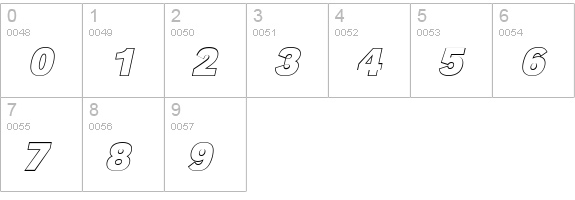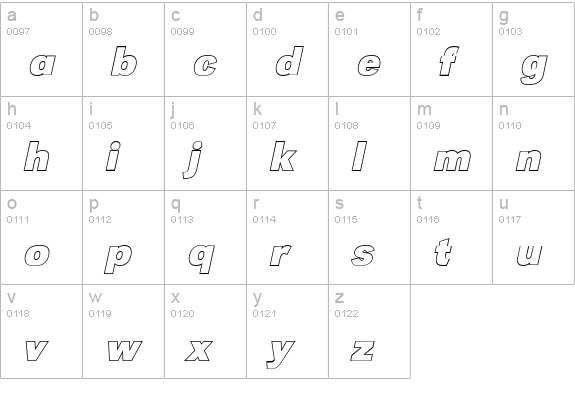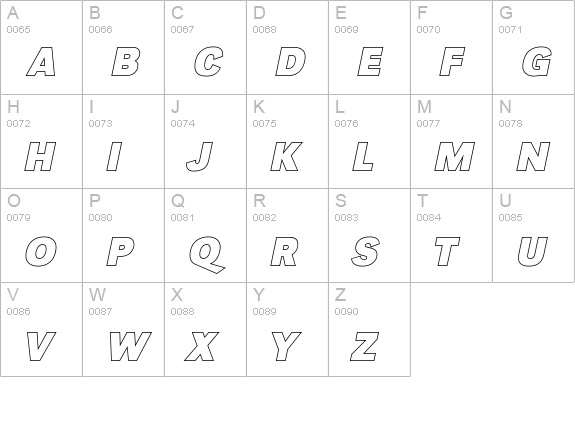
GroteskOu-BoldItalic is a bold and dynamic font that exudes a sense of strength and modernity. Its slanted italic style adds a touch of sophistication and elegance to any design project. This font is perfect for creating eye-catching headlines, branding materials, and bold statements. With its clean lines and distinct character shapes, GroteskOu-BoldItalic demands attention and makes a bold statement. The best part about GroteskOu-BoldItalic? It is completely free to download at FontsMarket.com! Whether you are a designer looking to add a modern twist to your projects or a business in need of a strong and impactful typeface, GroteskOu-BoldItalic is the perfect choice. Download it today and elevate your designs with this striking and versatile font.